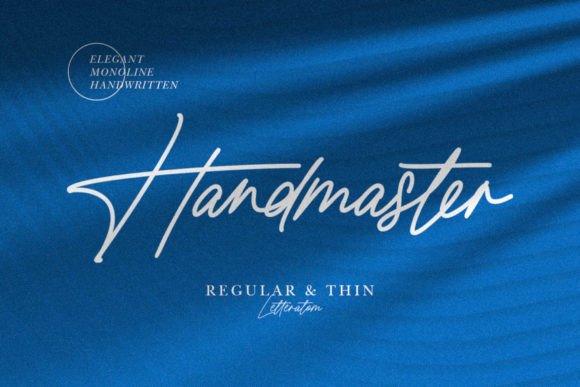
Introducing Handmaster Font, the epitome of elegance and sophistication in the realm of monoline handwriting. Created by the brilliant minds at Letteratom, this font family is a true masterpiece that will leave a lasting impression on your design projects.
With its two captivating options of regular and thin, Handmaster Font offers you the versatility to customize your work and make it truly unique. Whether you're aiming for a classy and refined look or an extraordinary and eye-catching design, Handmaster has got you covered.
Imagine your brand exuding a natural and distinctive vibe that sets you apart from the competition. Handmaster Font is the secret ingredient that will elevate your branding to new heights. It effortlessly captures the essence of a personal signature, adding a touch of authenticity and charm to your logos, packaging, and business cards.
But Handmaster Font doesn't stop there. Its versatility extends to website headlines, where it takes center stage and grabs the attention of every visitor. Let your website speak volumes with this captivating font that demands to be noticed.
Elevate your design projects to new levels of creativity and professionalism with Handmaster Font. It empowers you to create stunning visuals that speak directly to your audience's emotions. Its unique and captivating style evokes a sense of trust, reliability, and beauty.
Don't settle for ordinary fonts that fade into the background. Handmaster Font was meticulously crafted to make a statement and leave a lasting impression. Its rich strokes and impeccable flow will captivate your audience, ensuring that your message is heard loud and clear.